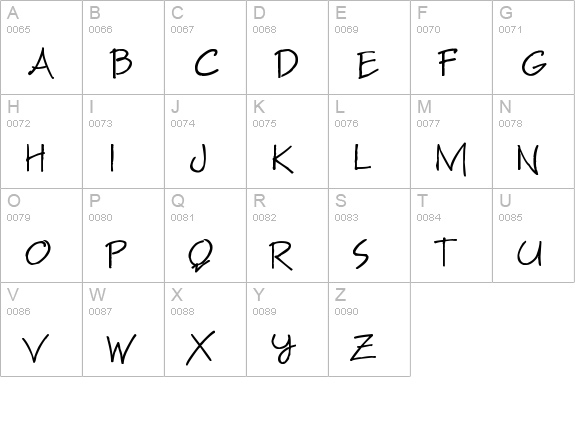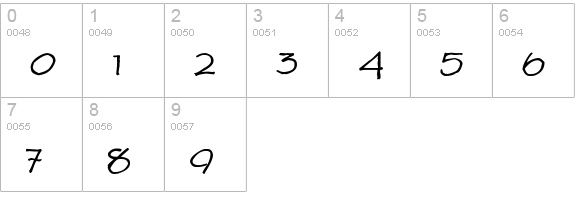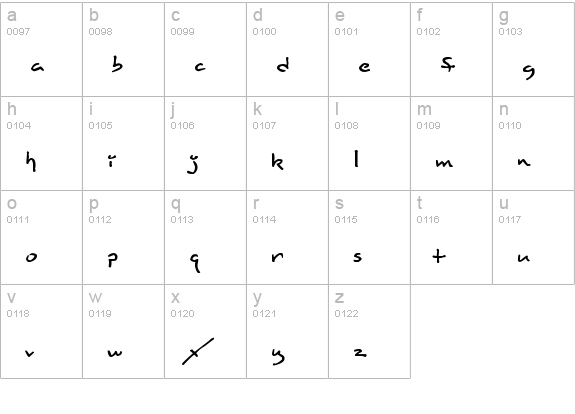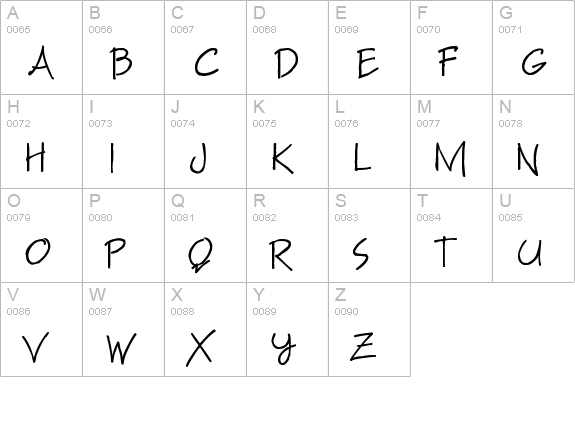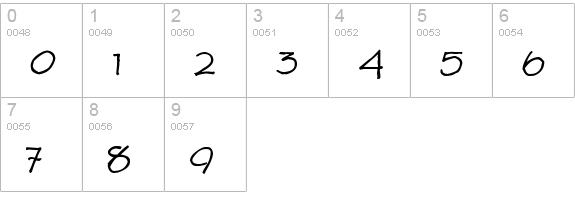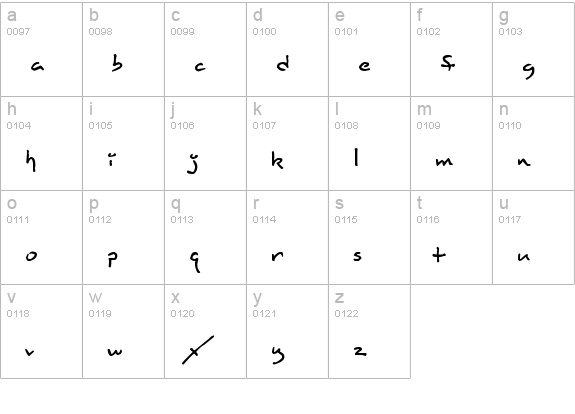
Maxine Script font is a stunning and elegant typeface that exudes a sense of sophistication and style. With its flowing curves and graceful letterforms, Maxine Script is perfect for adding a touch of class to any design project. Whether you're creating wedding invitations, branding materials, or social media graphics, this font will elevate your work to the next level. But the best part? Maxine Script is completely free to download! You can get your hands on this beautiful font at FontsMarket.com, where you can easily access and start using it in your projects right away. Don't miss out on the opportunity to enhance your designs with the timeless beauty of Maxine Script font - download it now and let your creativity shine!